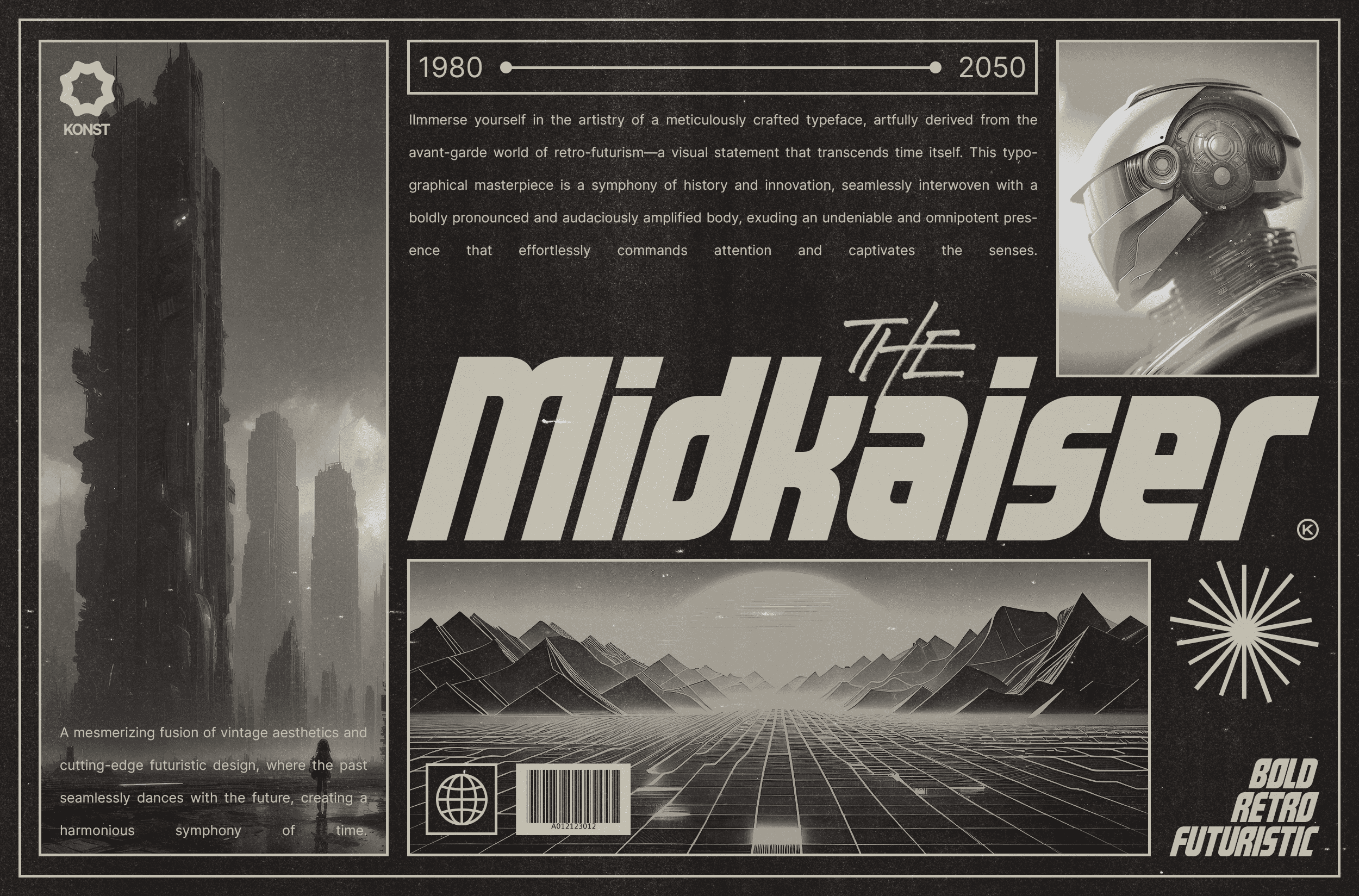
Midkaiser - Bold Futuristic Fonts
Behold the allure of Midkaiser - where innovation converges with design mastery, creating an experience that transcends the ordinary. Prepare to be captivated by the future of typography!
Midkaiser is not just a font; it's a testament to visionary design. Elevate your creations with a futuristic allure that has already earned accolades across the design universe.
Crafted with precision, Midkaiser boasts a seamless blend of boldness and sophistication. Empowers your brand to stand out, leaving an indelible imprint on your audience's perception.
Covers a wide variety of languages, included Vietnamese. See the details in the preview images.
Ignite your creativity, transform your designs, and leave a lasting impression with Midkaiser - Your Gateway to Futuristic Tech Fonts!